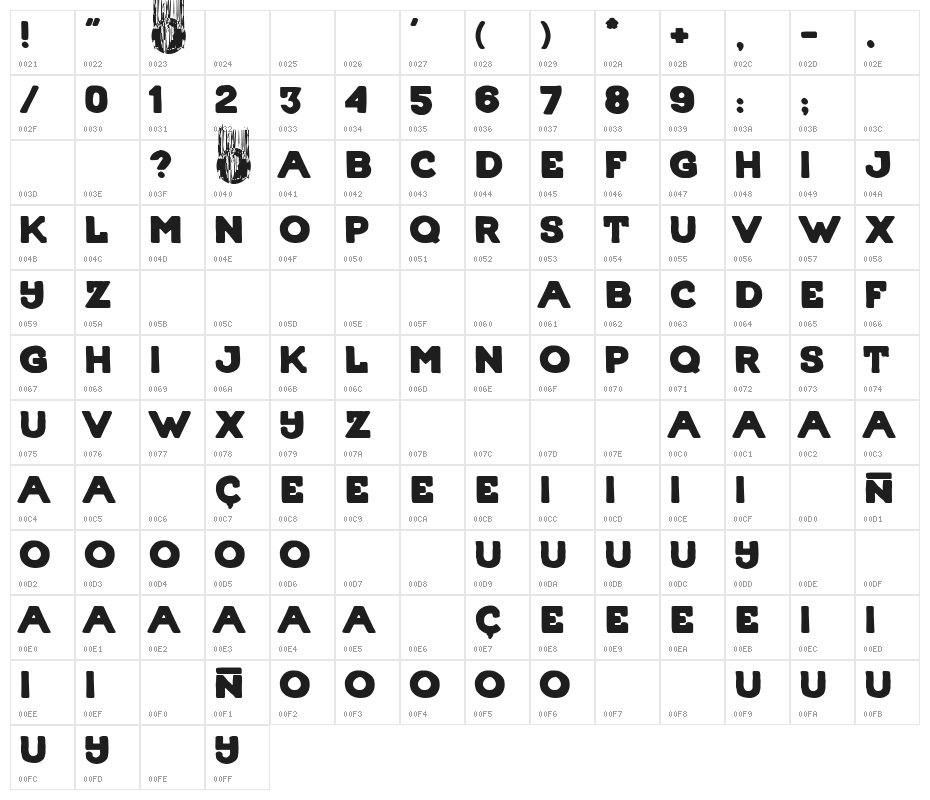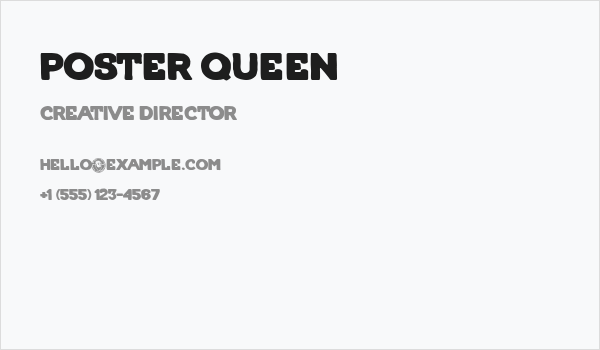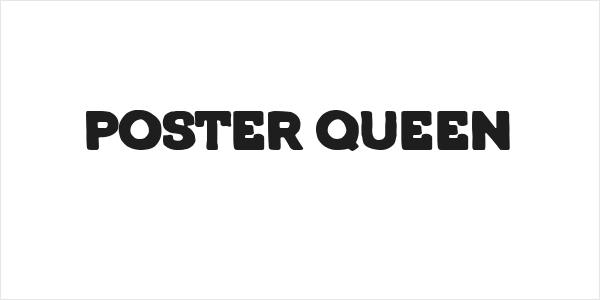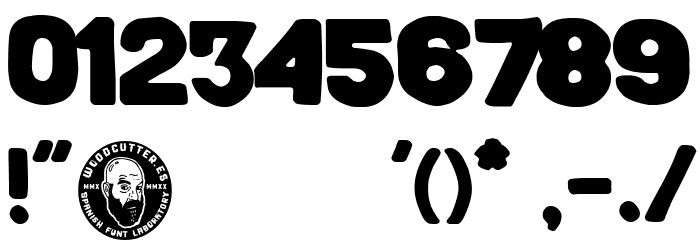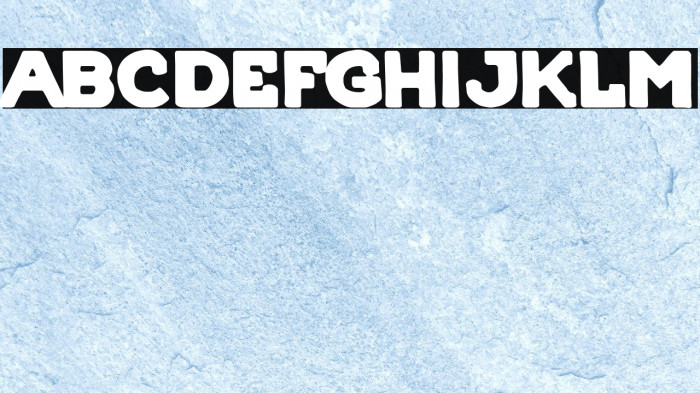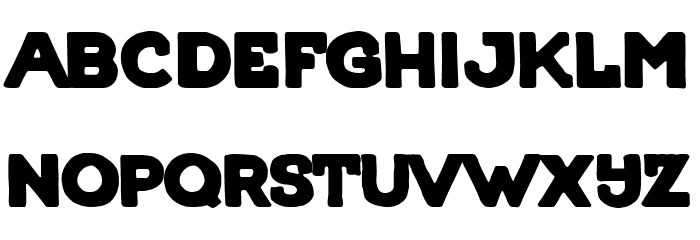
Poster Queen Font
Poster Queen Description
This bold and playful font features thick, rounded characters that convey a sense of fun and creativity. The uppercase and lowercase letters maintain a consistent weight, creating a cohesive look across the alphabet. The numbers are equally bold, with a slightly exaggerated style that adds to the font's whimsical nature. Special characters are included, maintaining the same playful aesthetic. The overall design is ideal for projects that require a strong visual impact, such as posters or headlines. Its unique style makes it stand out, while the rounded edges give it a friendly and approachable feel.
| Proposed Projects | Perfect for posters, children's books, playful branding, and creative advertising. |